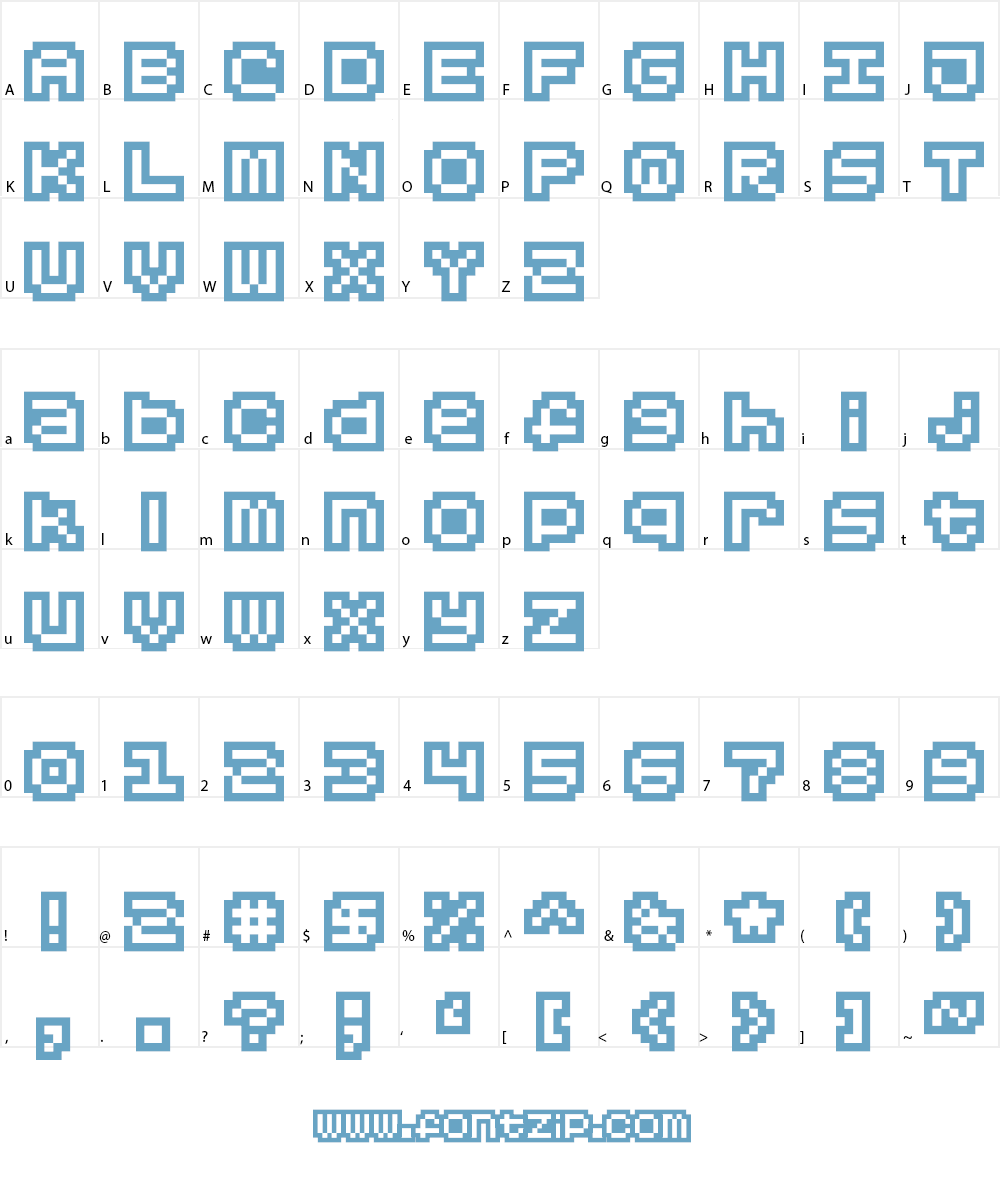
Original size: 5.25pt (use multiples of this value for pixel perfection)
A 7x7 outline design which is made to form solid-looking masses from the glyphs while still allowing the outer perimeters of words to take on some unique shapes. :^)